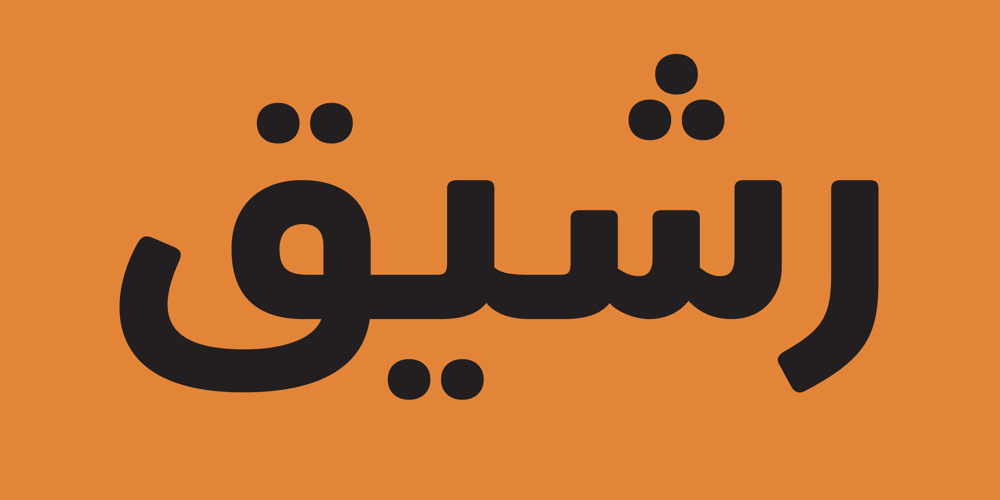
FS Albert Arabic Font Family was designed by Emanuela Conidi and published by Fontsmith. FS Albert Arabic contains 5 styles and family package options. BrotherTo create a truly global font family, FS Albert needed an Arabic script sibling. Emanuela Conidi set about the delicate task of creating an alphabet to harmonise visually with its Latin sans serif counterpart so that the two could be used side-by-side in bilingual publications. Working with the Kufic style of script, with its simpler, geometric forms, Emanuela sculpted letters with the a similar optical size, weight and rhythm as FS Albert, with open counters and monolinear strokes. It never hurts to NaskhBut there’s more to FS Albert than a simple, geometric structure. To match Albert’s cheery, charming character, FS Albert Arabic needed an injection of warmth and informality. Emanuela incorporated some of the more expressive, calligraphic shapes of the Naskh script style, which lent the letterforms a looser, softer, more handwritten quality, while remaining functional and structured. The Naskh influence is most noticeable in the bowl of characters such as Jim, Qaf and Nun, in the curved tail of Waw and Reh, and the deep joining of Tah. Follow the scriptThe end result is an Arabic script that’s the perfect partner to FS Albert: open counters, monolinear strokes and a friendly, rounded appearance. FS Albert Arabic is available in Opentype format, in five weights from Thin to ExtraBold. It supports Persian and Urdu, with proportional and tabular numerals for both, plus full vocalisation and the Hijra feature.